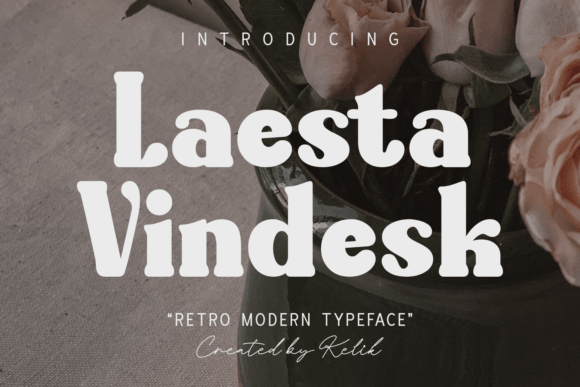
Prepare yourself to be spellbound by Laesta Vindesk, a remarkable retro display font that effortlessly blends the allure of vintage aesthetics with the modernity of contemporary design. This typeface is a masterpiece that will leave you utterly captivated. Its clean lines and distinctive letterforms are a visual feast that will make your designs shine with sophistication and charm.
With Laesta Vindesk, you can effortlessly transport your audience to a bygone era while keeping your designs firmly rooted in the present. This font is more than just a collection of characters; it's a journey through time, where nostalgia and innovation harmoniously intertwine.
Let Laesta Vindesk take you on an adventure through the realms of creativity. Its timeless charm is perfect for crafting eye-catching headlines that command attention and leave a lasting impression. Imagine your logo adorned with the elegance of this font, becoming an instant classic that exudes sophistication and individuality.
Whether you're creating branding materials, digital designs, or print projects, Laesta Vindesk is your trusted companion. Its versatility knows no bounds, allowing you to weave your creative magic across a wide range of mediums. With this font by your side, you'll effortlessly transform your ideas into captivating designs that resonate with your audience.
Unlock the power of nostalgia with Laesta Vindesk and embark on a creative odyssey that transcends time. Embrace the beauty of the past while embracing the possibilities of the present. This font is more than just a tool; it's a gateway to a world where creativity thrives and designs come alive.
So, why settle for ordinary when you can embrace the extraordinary? Dive into the world of Laesta Vindesk and elevate your designs to new heights. Let your imagination soar and witness the magic unfold as you create masterpieces that stand the test of time.